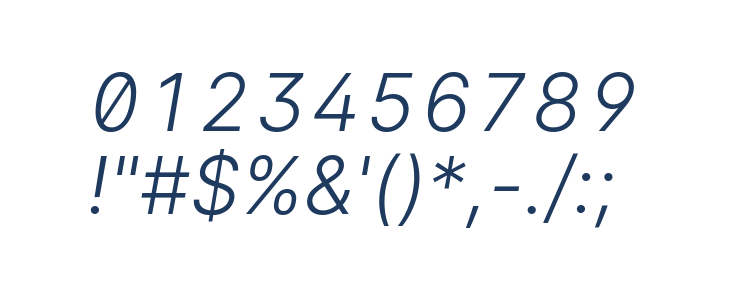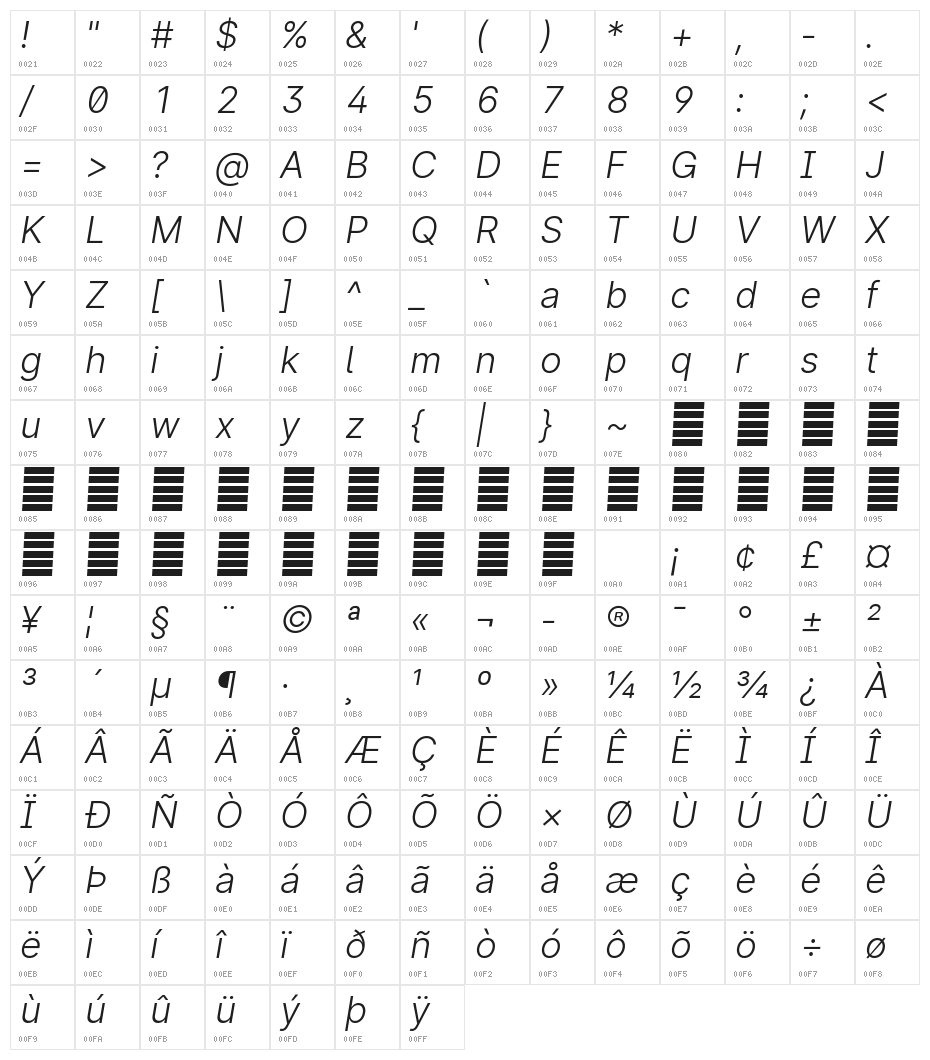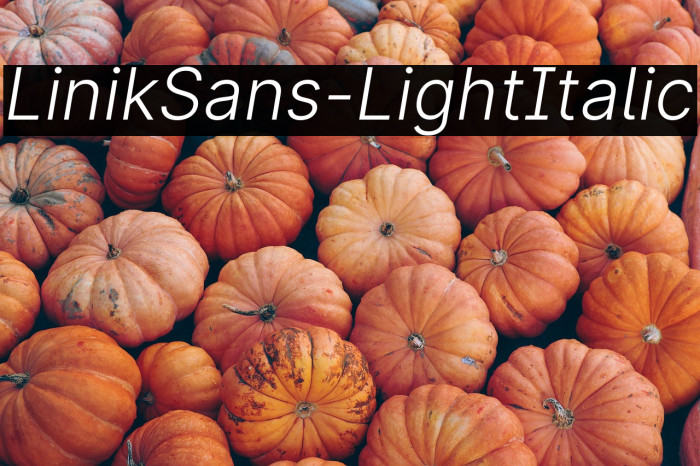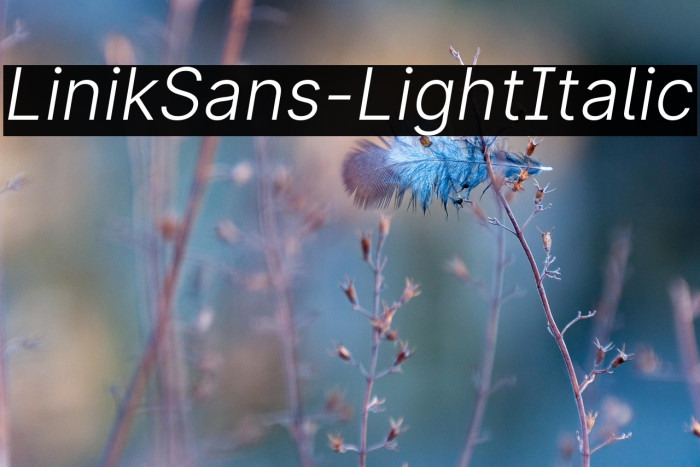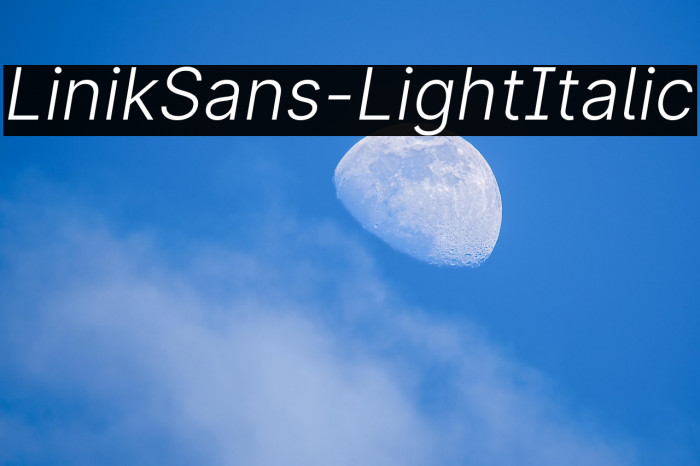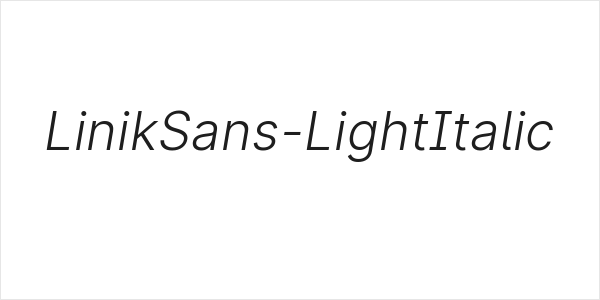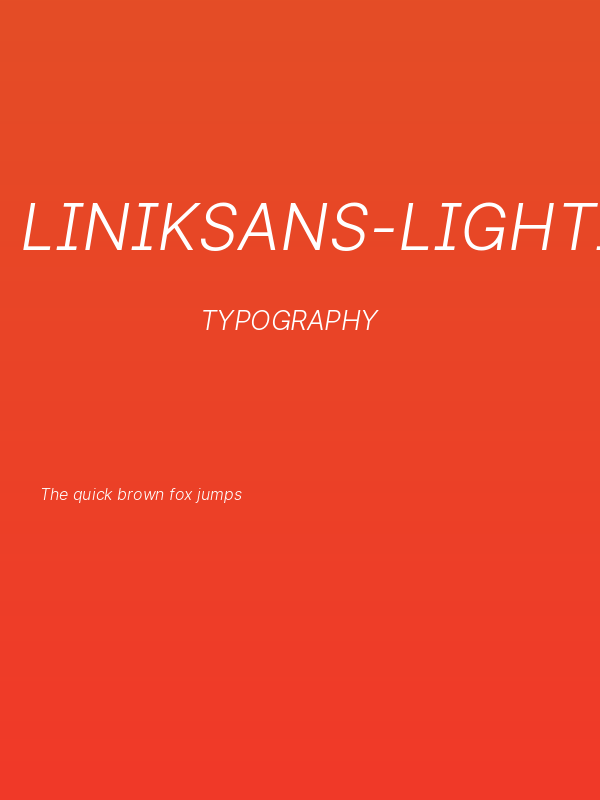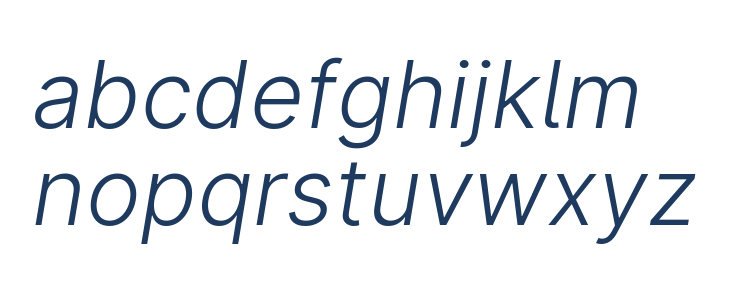
LinikSans-LightItalic Font
LinikSans-LightItalic Description
This font features a clean and modern sans-serif design with a light weight and italic style. The characters are slightly slanted, giving a dynamic and elegant appearance. The strokes are consistent and smooth, with a low contrast between thick and thin lines. The overall look is sleek and professional, making it suitable for a variety of design purposes. The spacing between characters is normal, ensuring readability and clarity. This font is versatile and can be used in both digital and print media.